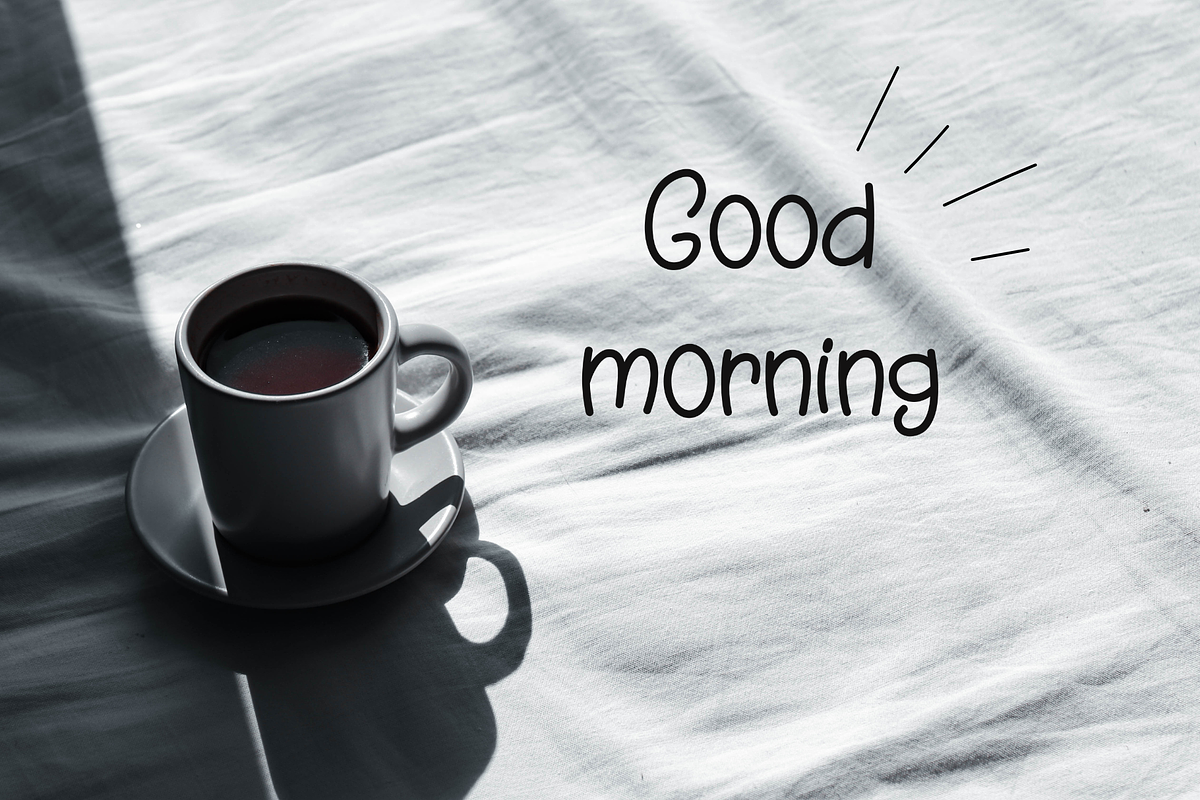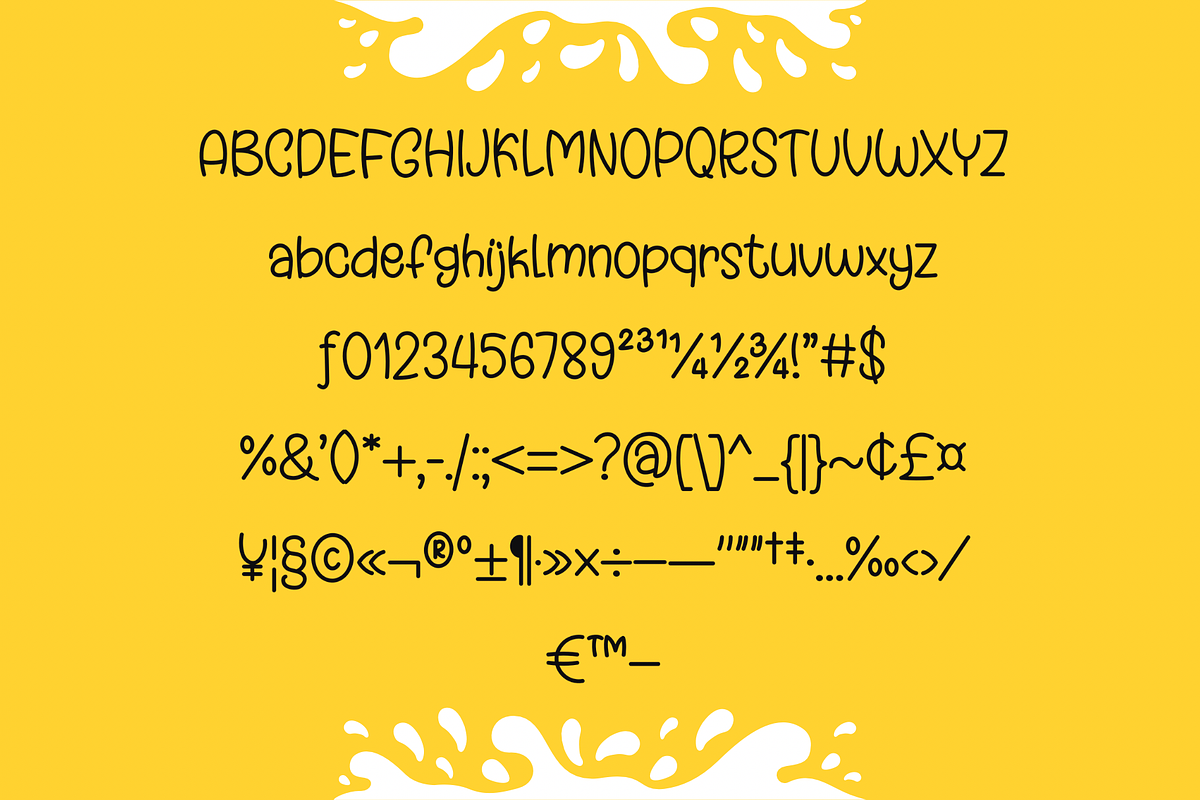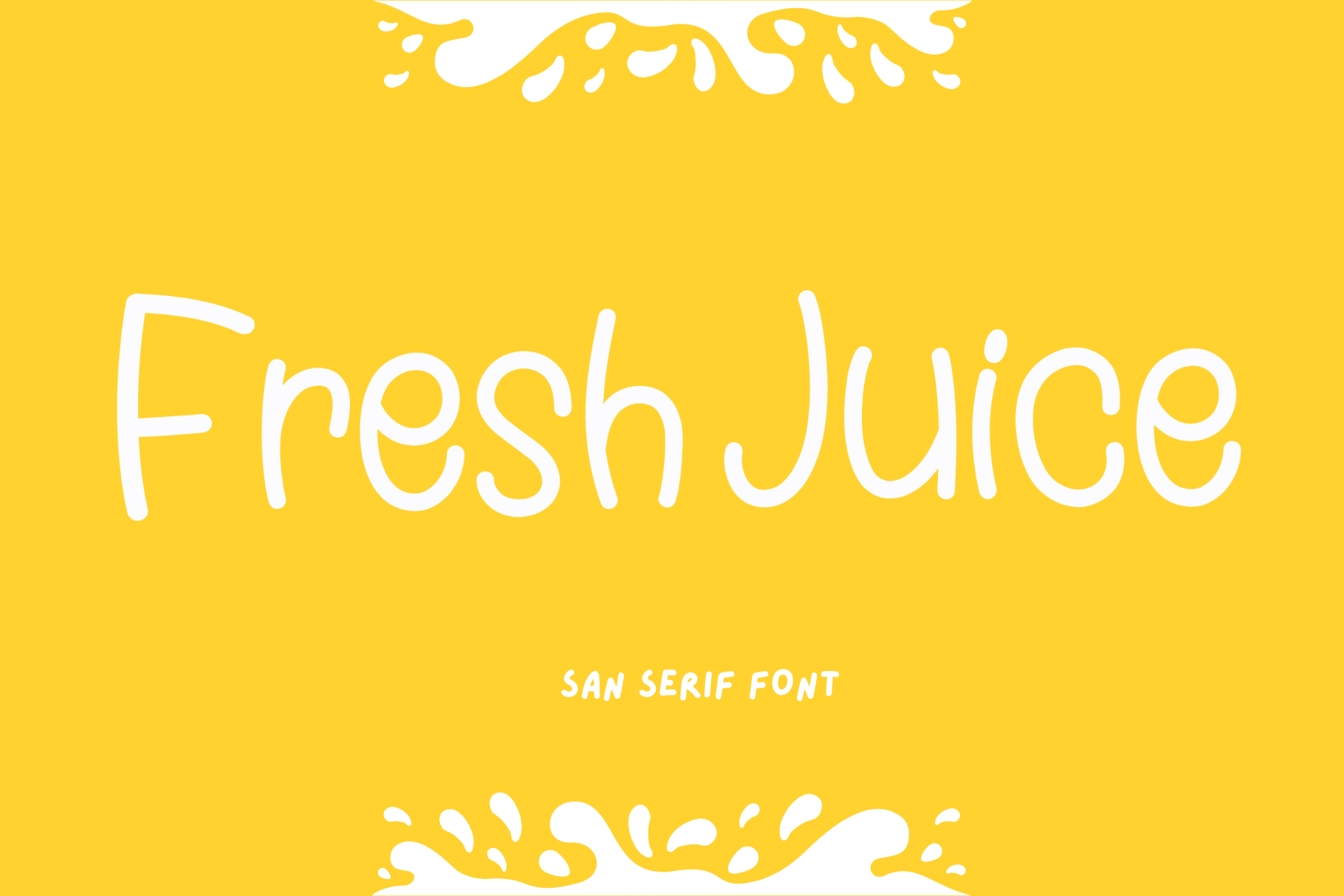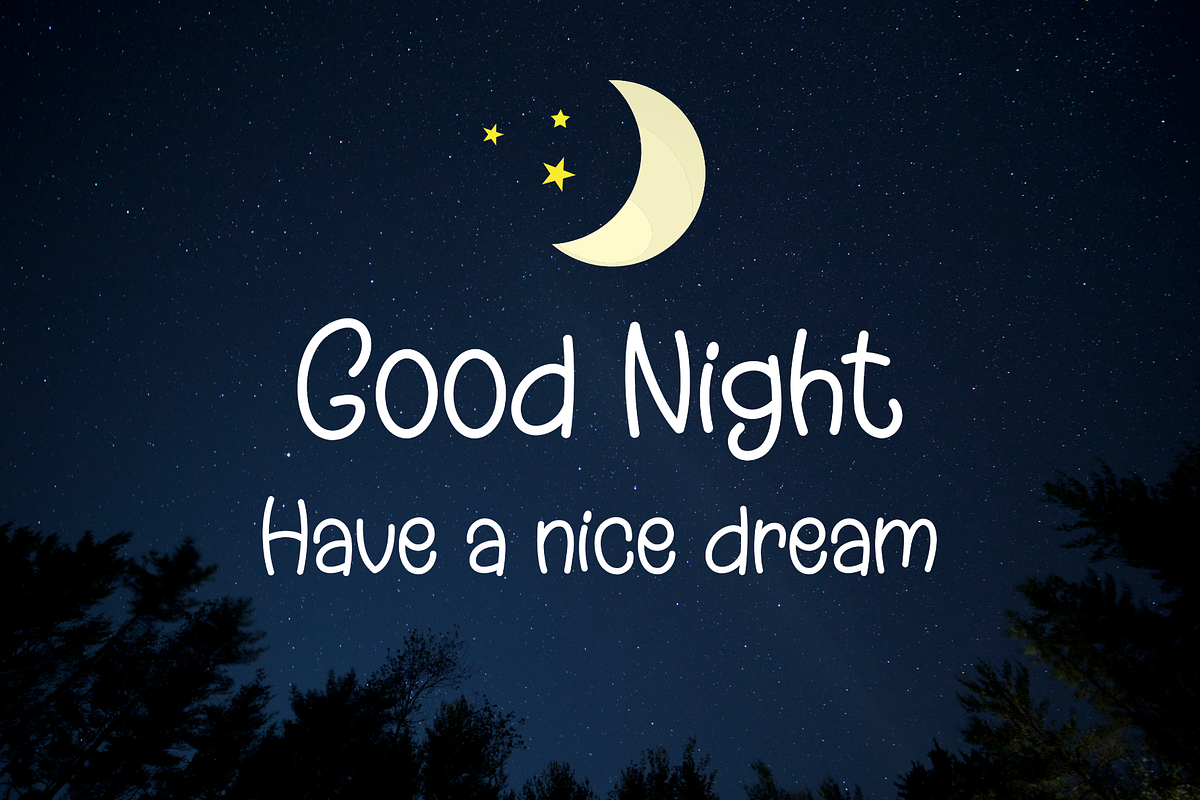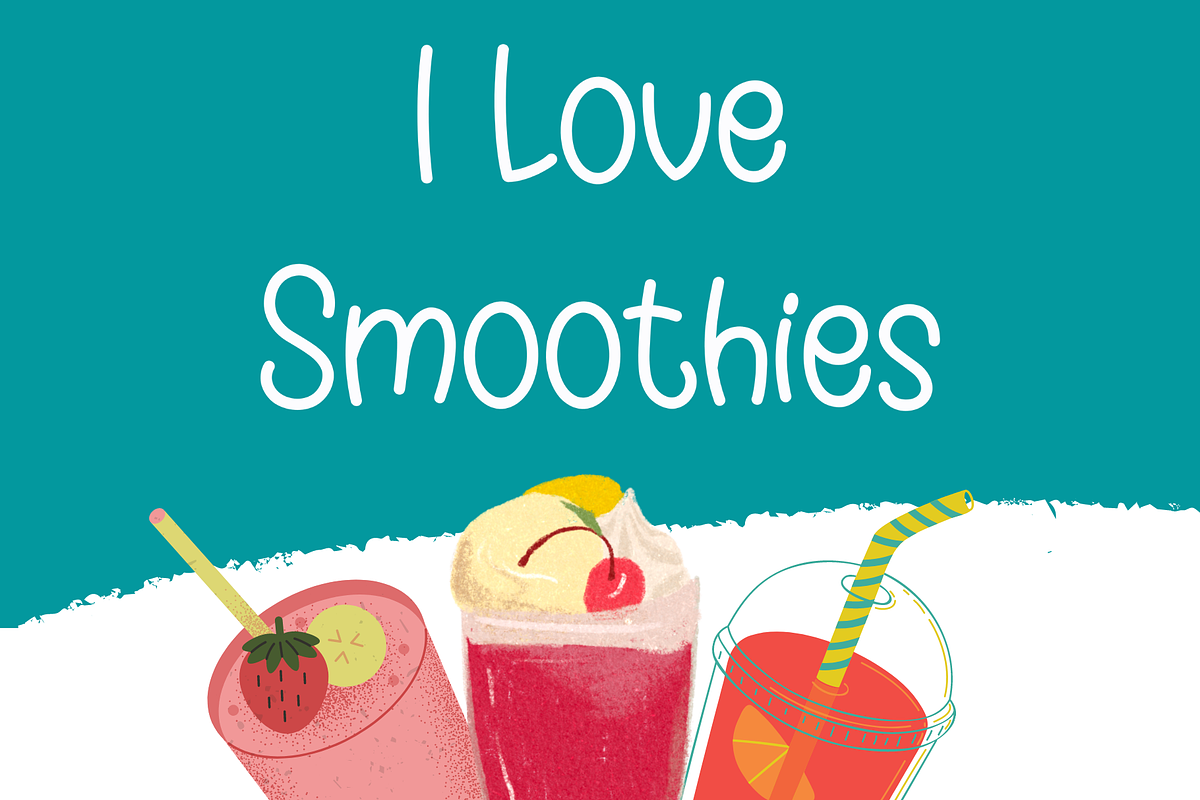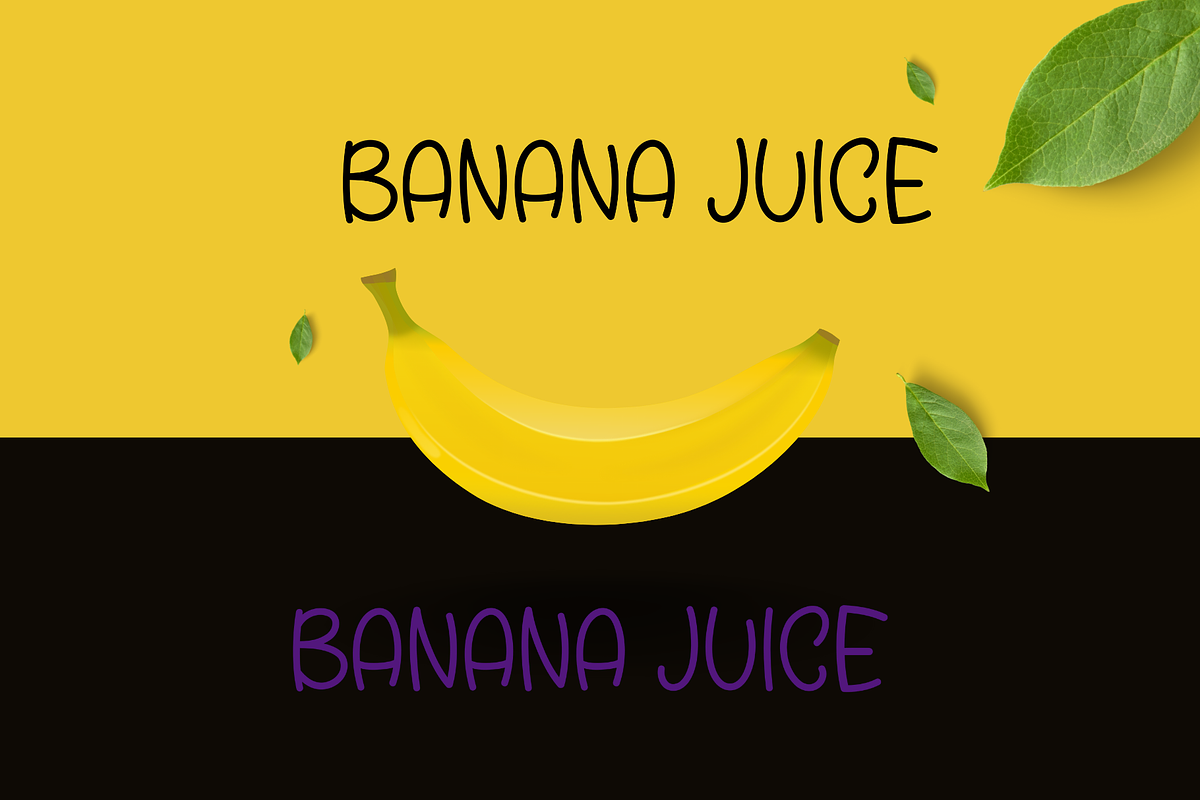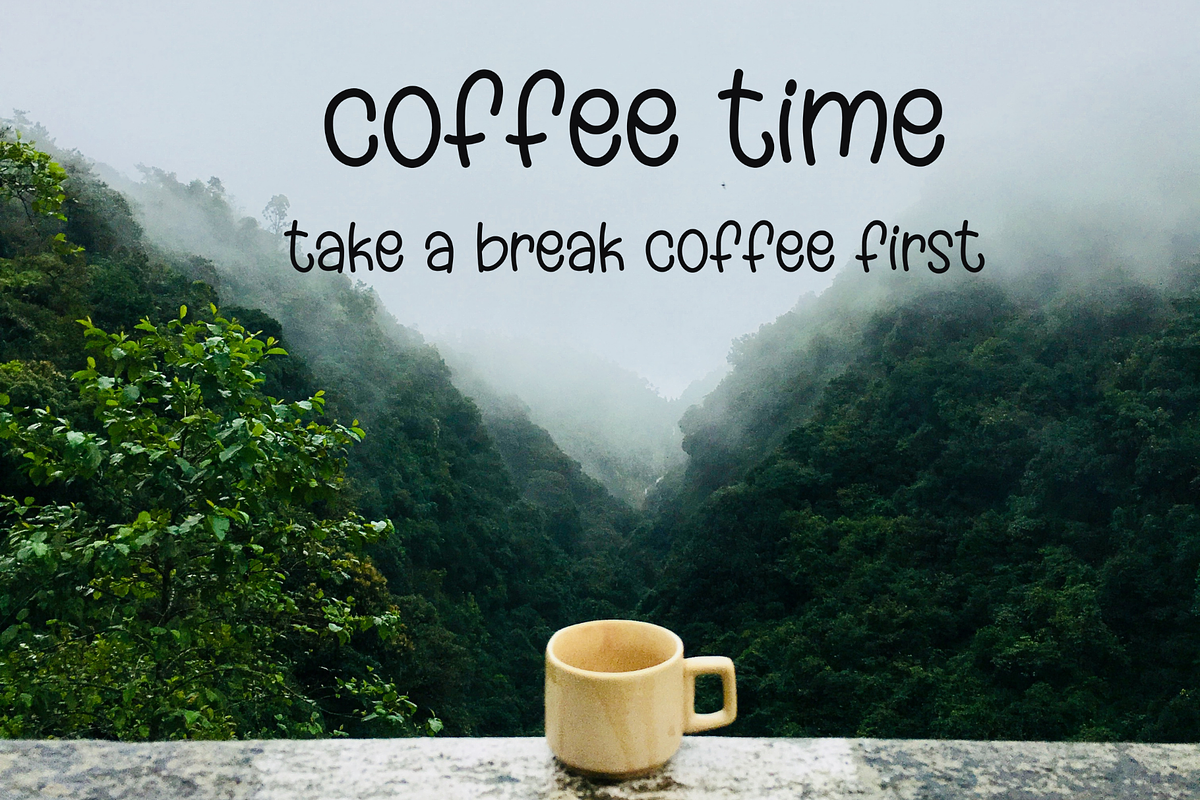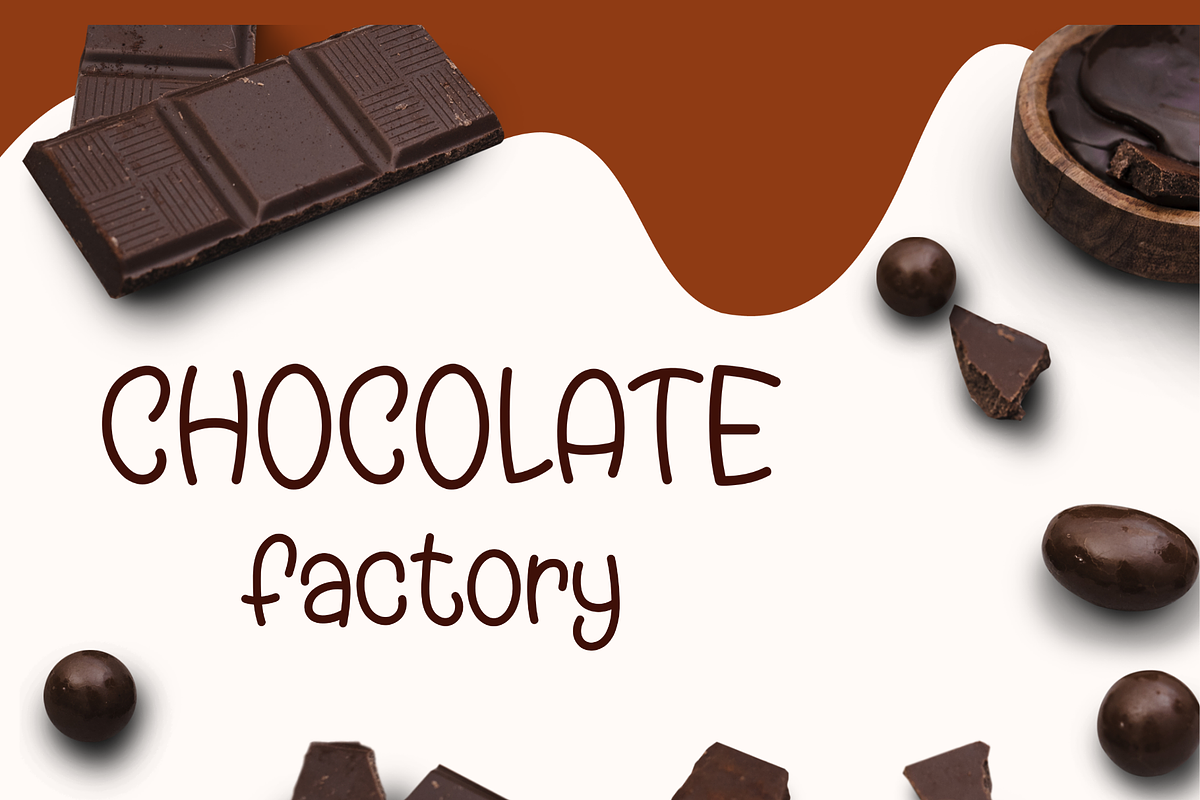
Fresh Juice Font
Fresh Juice is a cute and groovy handwritten font suitable for designing T-shirts, tote bags, hats, stickers, wedding invitations, logos, cards, quotes, and more! Groovy will make any creative idea stand out and stunning!